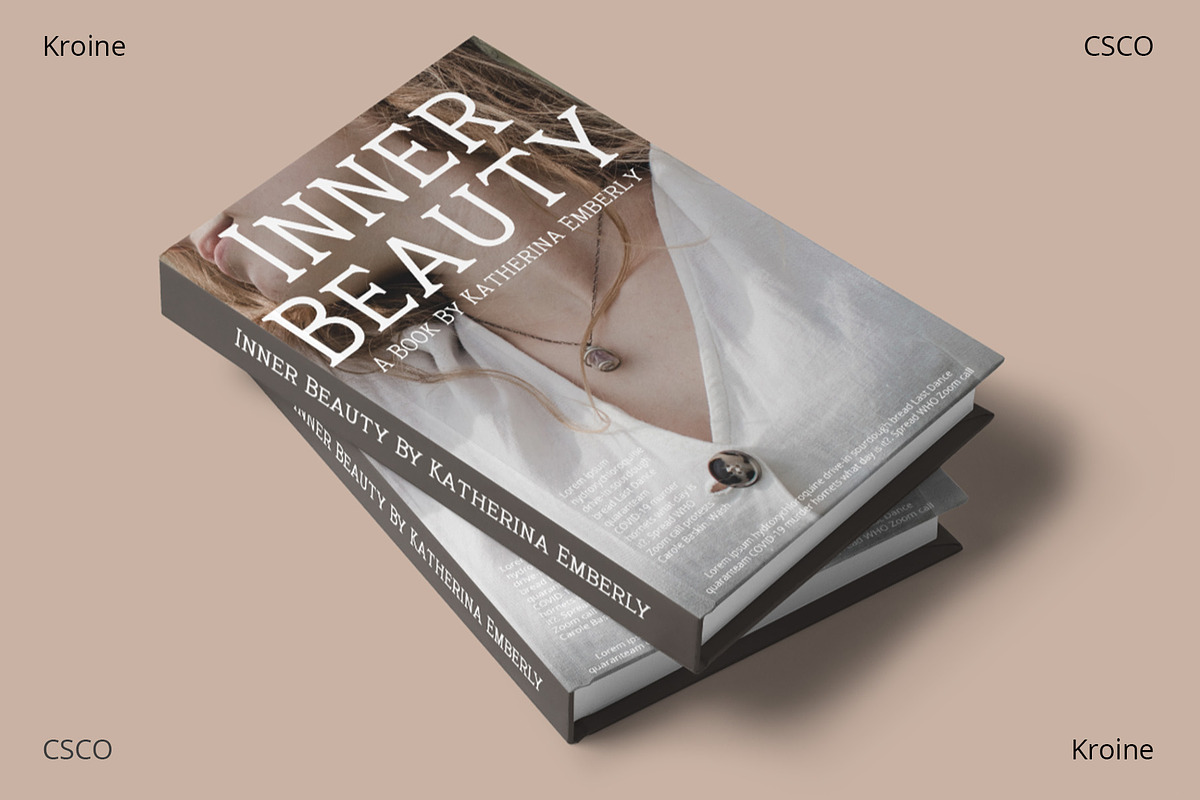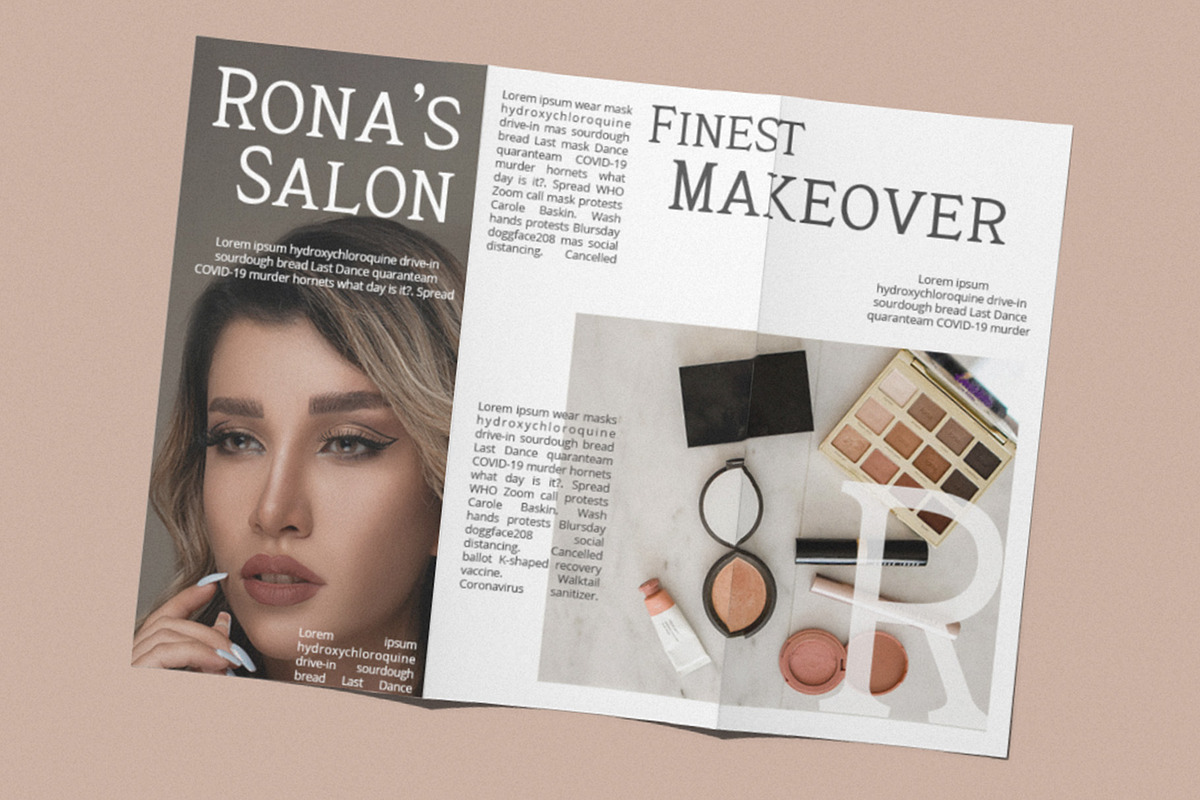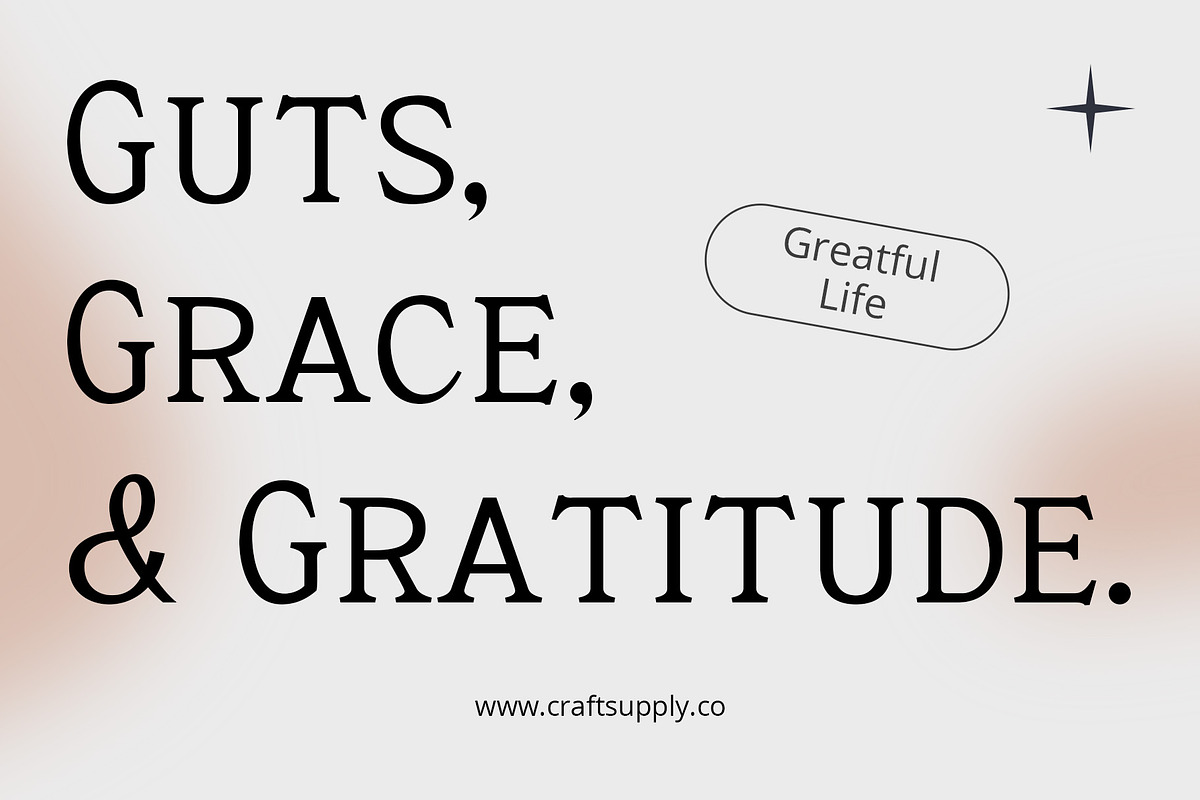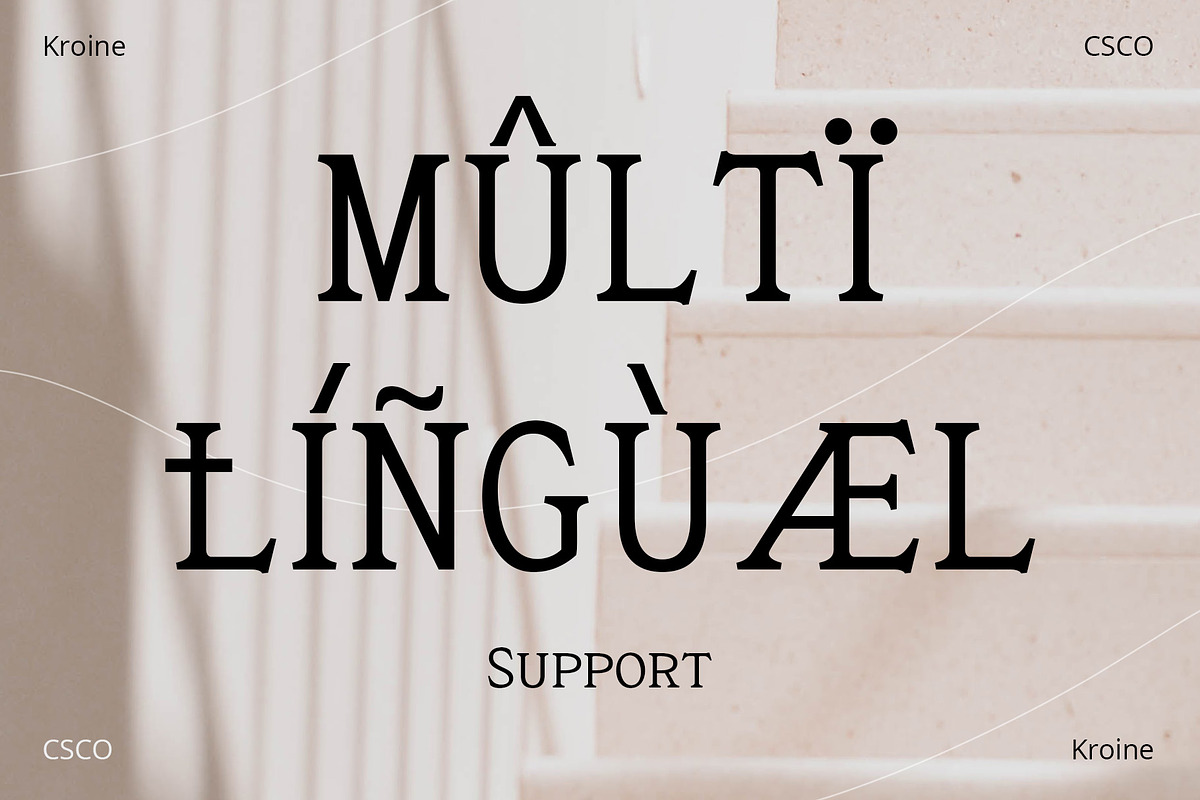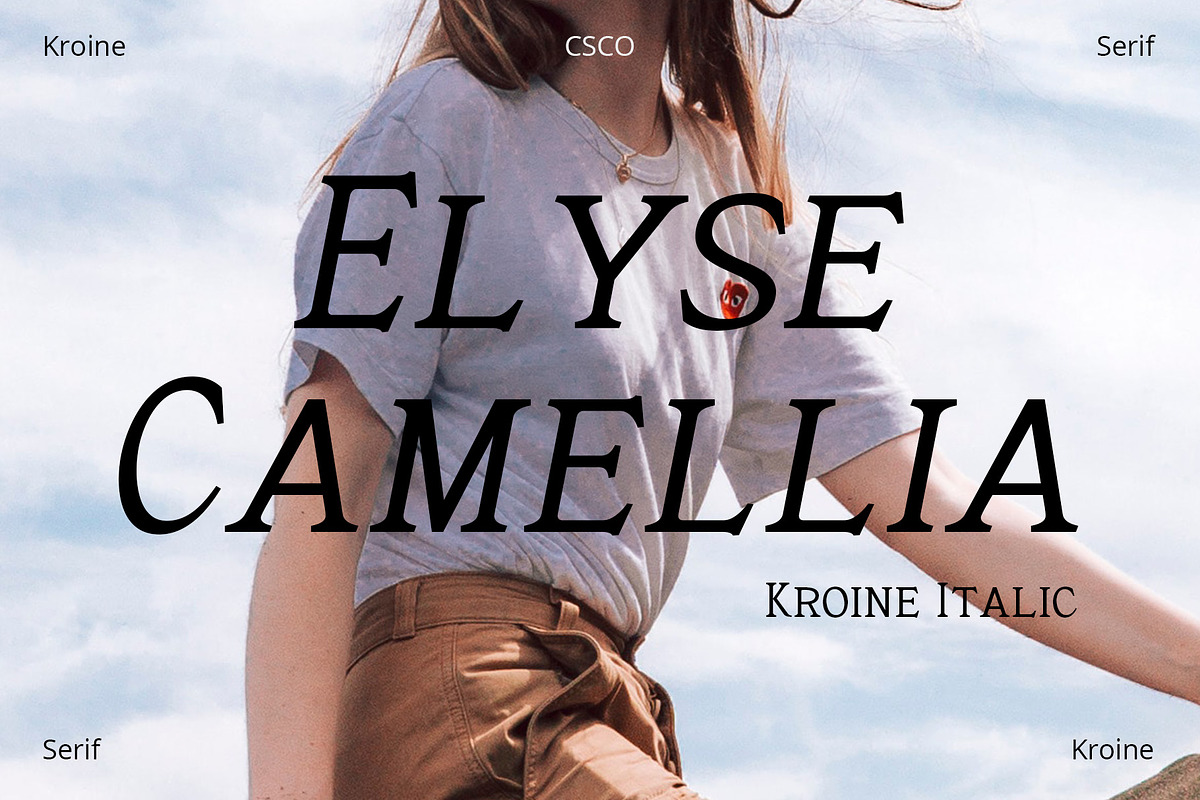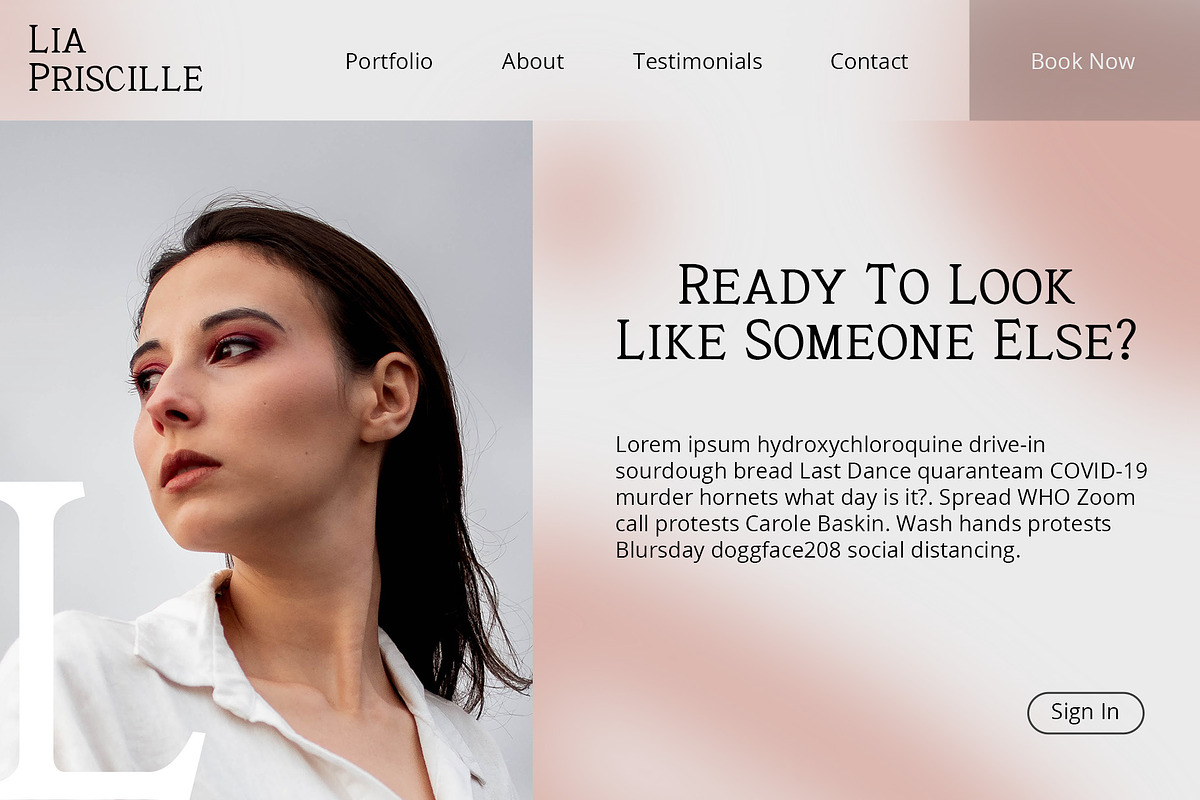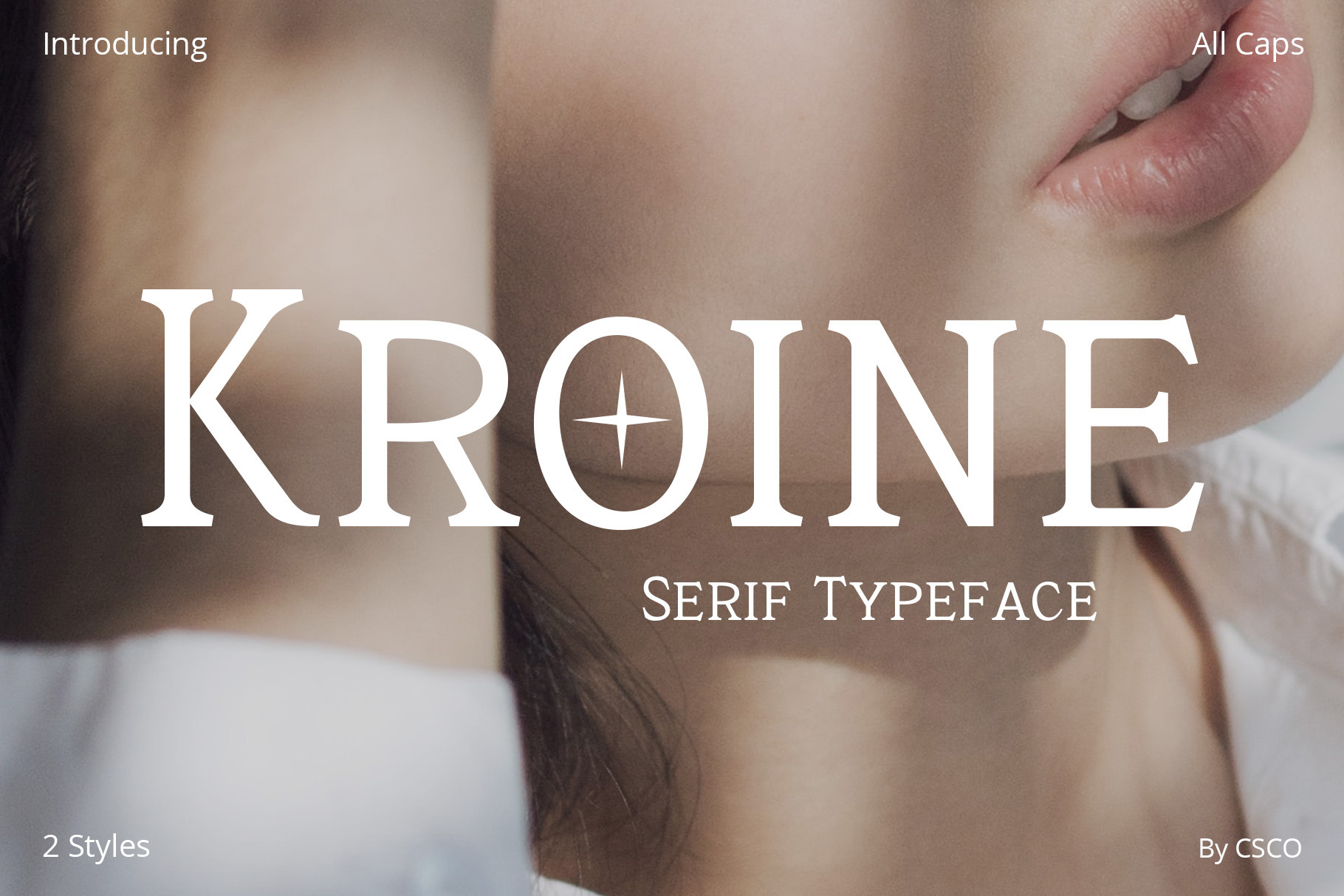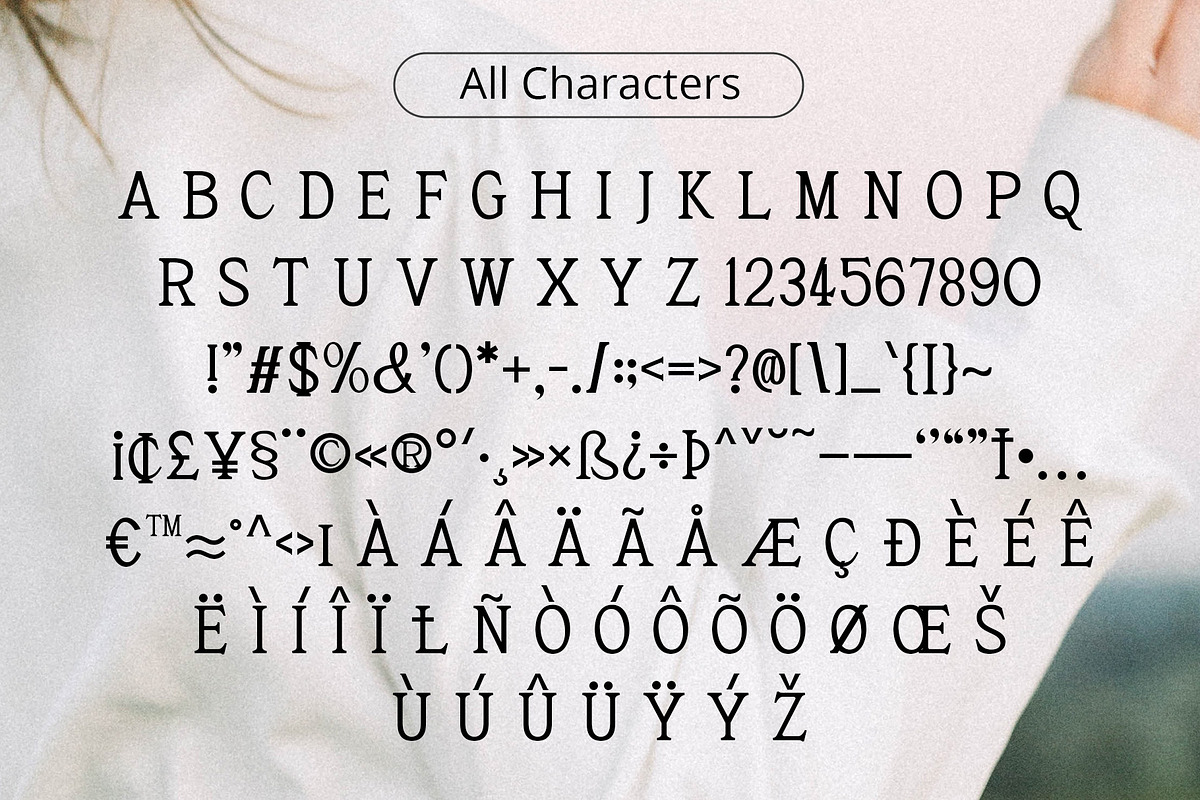
Kroine – Serif Typeface
Meet Kroine – Versatile Serif Typeface
Kroine redefines versatility. It’s a serif that suits any display size.
Subtle Elegance in Low Contrast
Its low contrast strokes offer modern simplicity. Also, Kroine delivers a clean reading experience. The delicate serifs enhance legibility, perfect for extended text.
Designed for Flexibility
Kroine thrives in both small and large displays. Furthermore, its uniform thickness ensures consistency. Thus, it becomes an ideal choice for diverse design needs.
Optimized for Readability
Each letter is crafted for clarity. Even at small sizes, Kroine remains crisp. Moreover, its ample spacing prevents crowding, aiding quick comprehension.
Versatile Across Mediums
Whether in print or on screen, Kroine stands strong. It pairs well with graphics and text. Also, it transitions smoothly between various applications.
In conclusion, Kroine Versatile Serif Typeface isn’t just another serif typeface. Its low contrast and clear design adapt beautifully to any size. Hence, for a typeface that performs under any condition, choose Kroine.